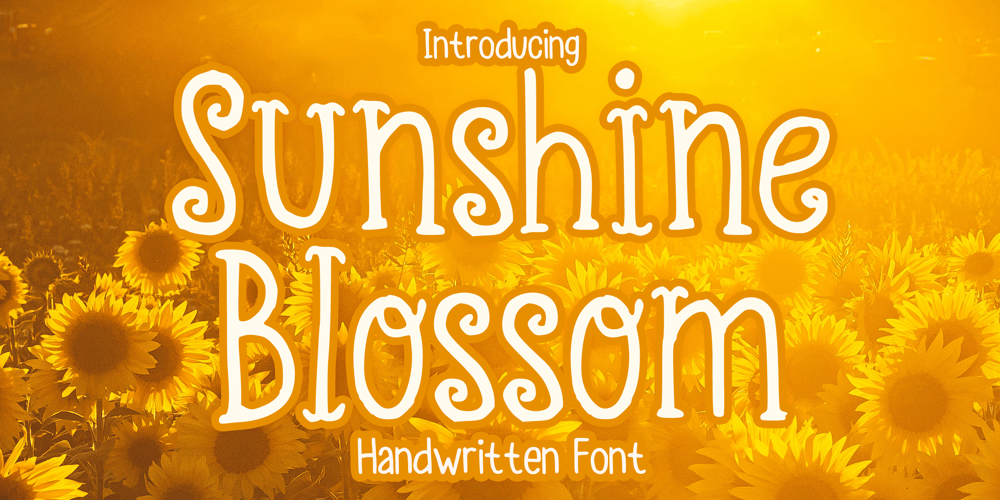
Sunshine Blossom Font Family was designed by Gabriel Valentinus and published by Mvmet. Sunshine Blossom contains 1 styles and family package options. Sunshine Blossom is a playful handwritten font with a vintage aesthetic. It is awesome for creating cool designs ranging from t-shirts, book designs, restaurant menus, blog writing, and greeting cards to stickers, or anything that needs a casual touch. Fall in love with its incredibly cool style, and use it to create lovely designs!